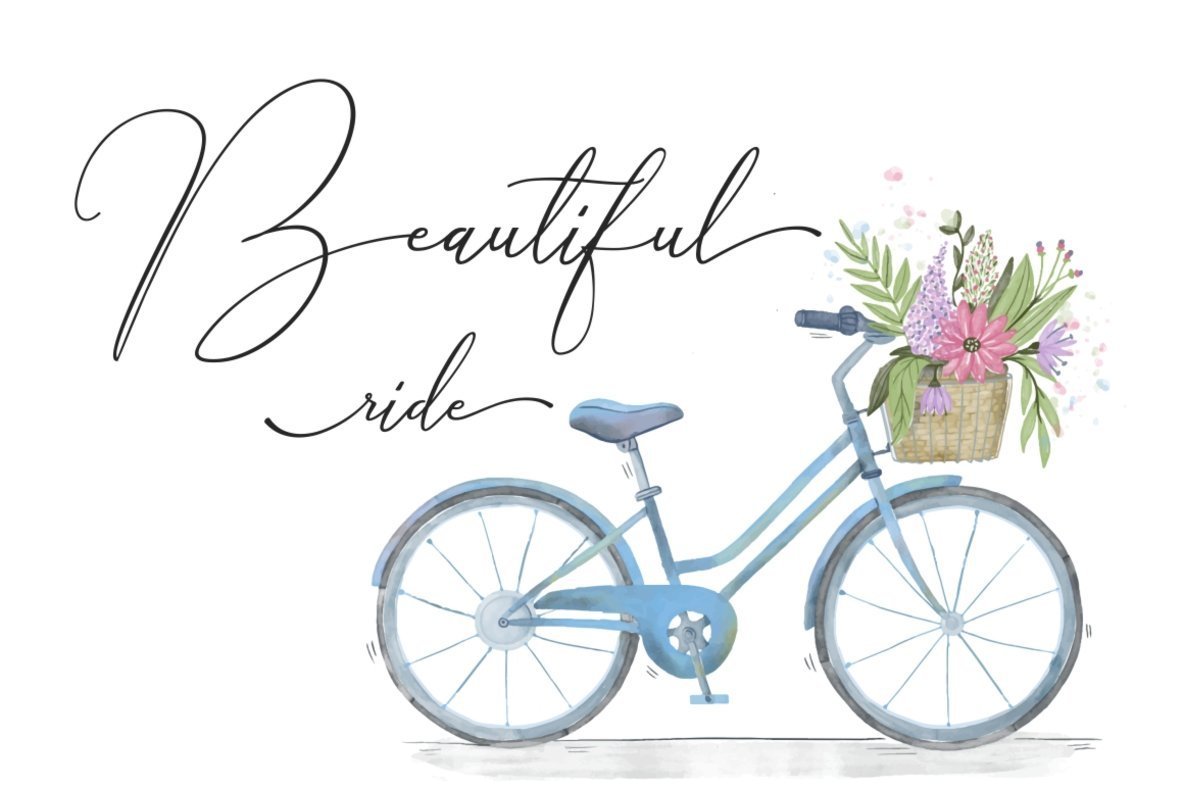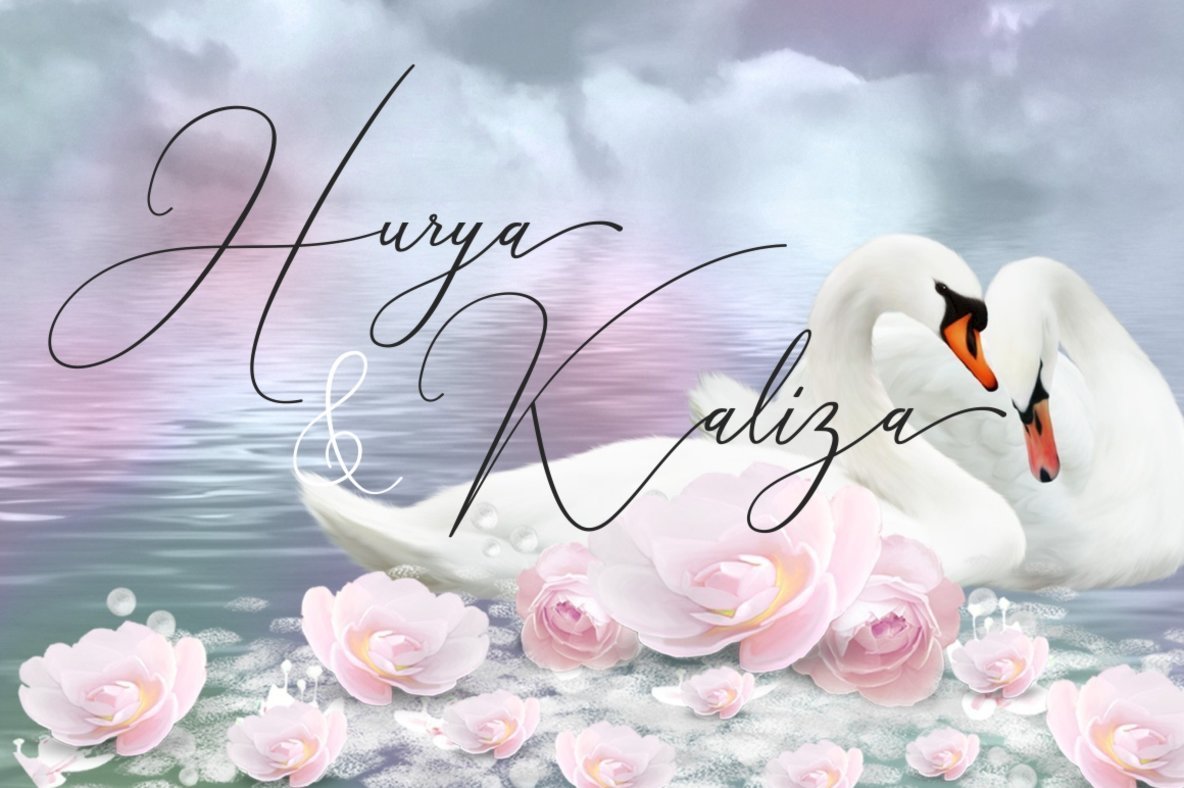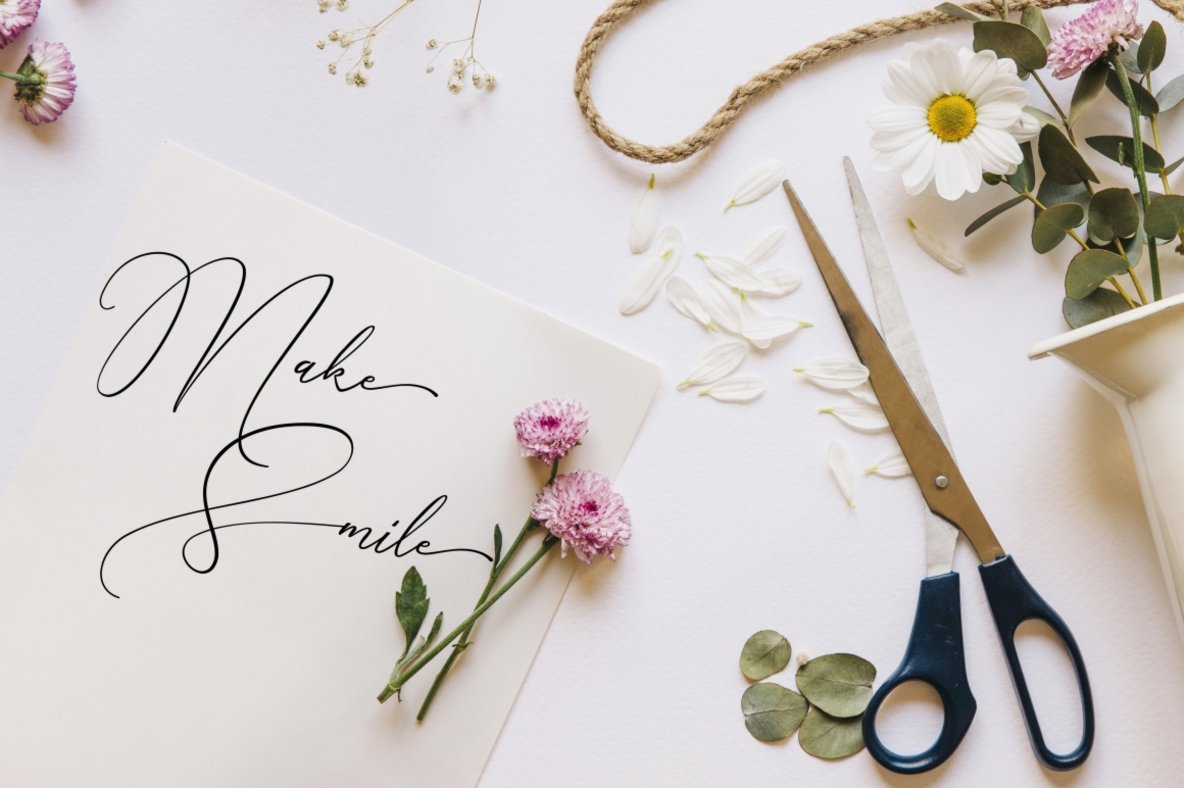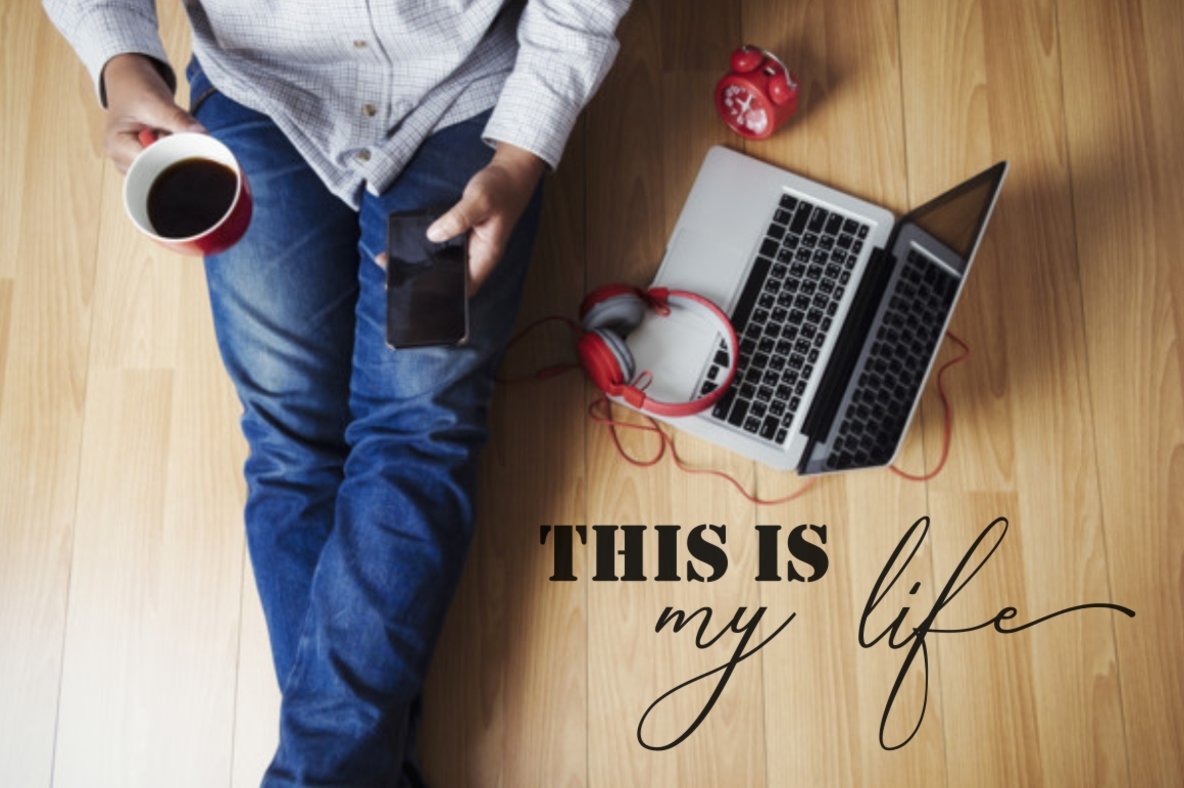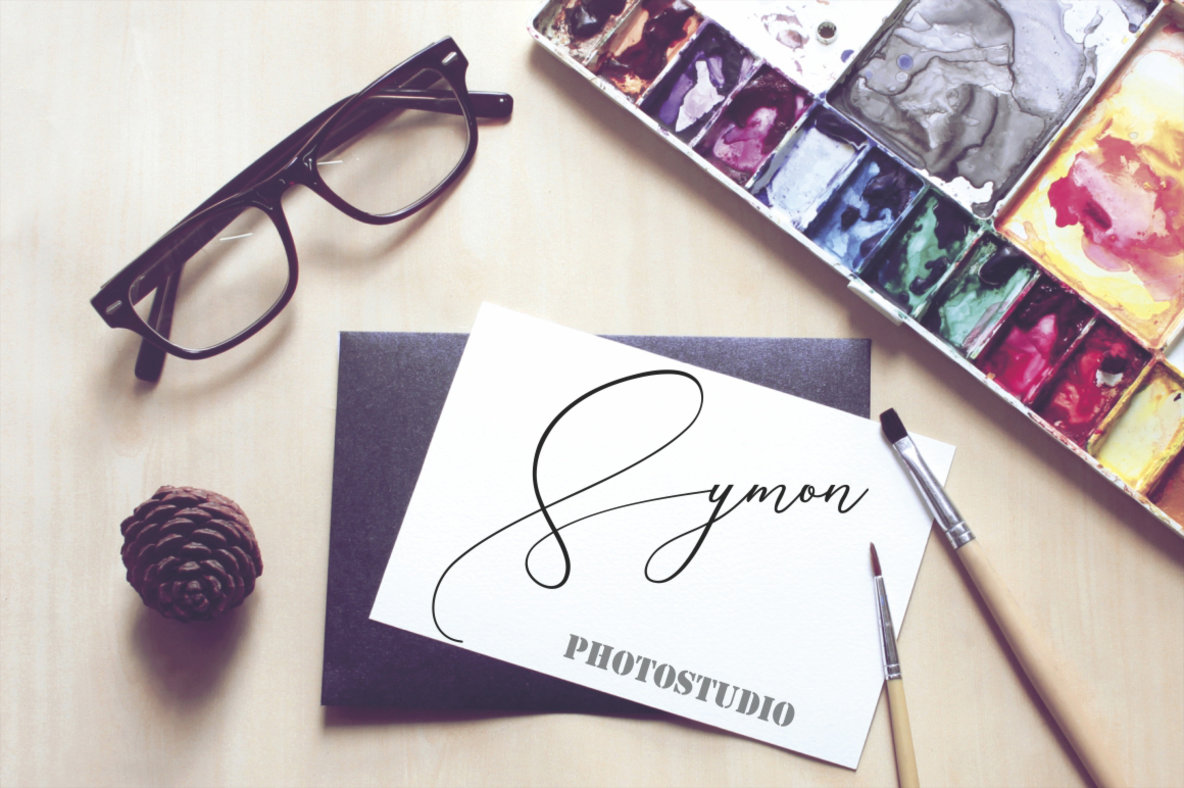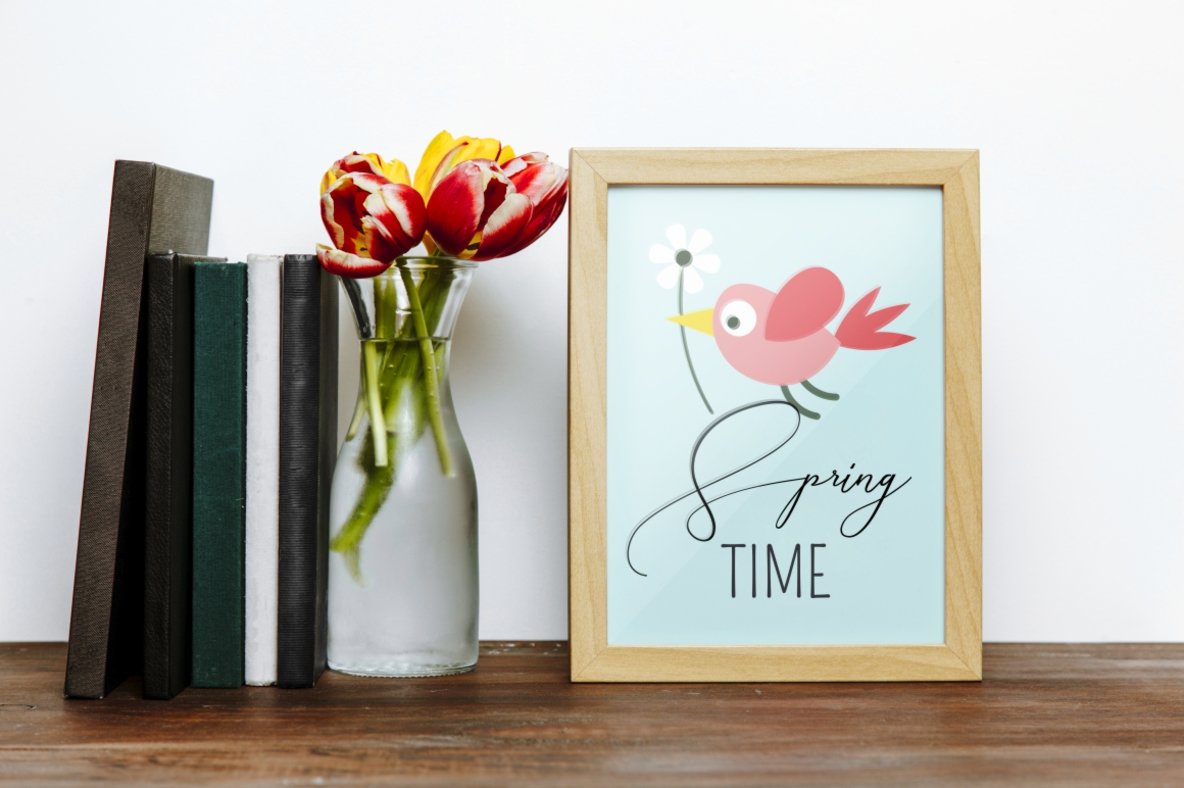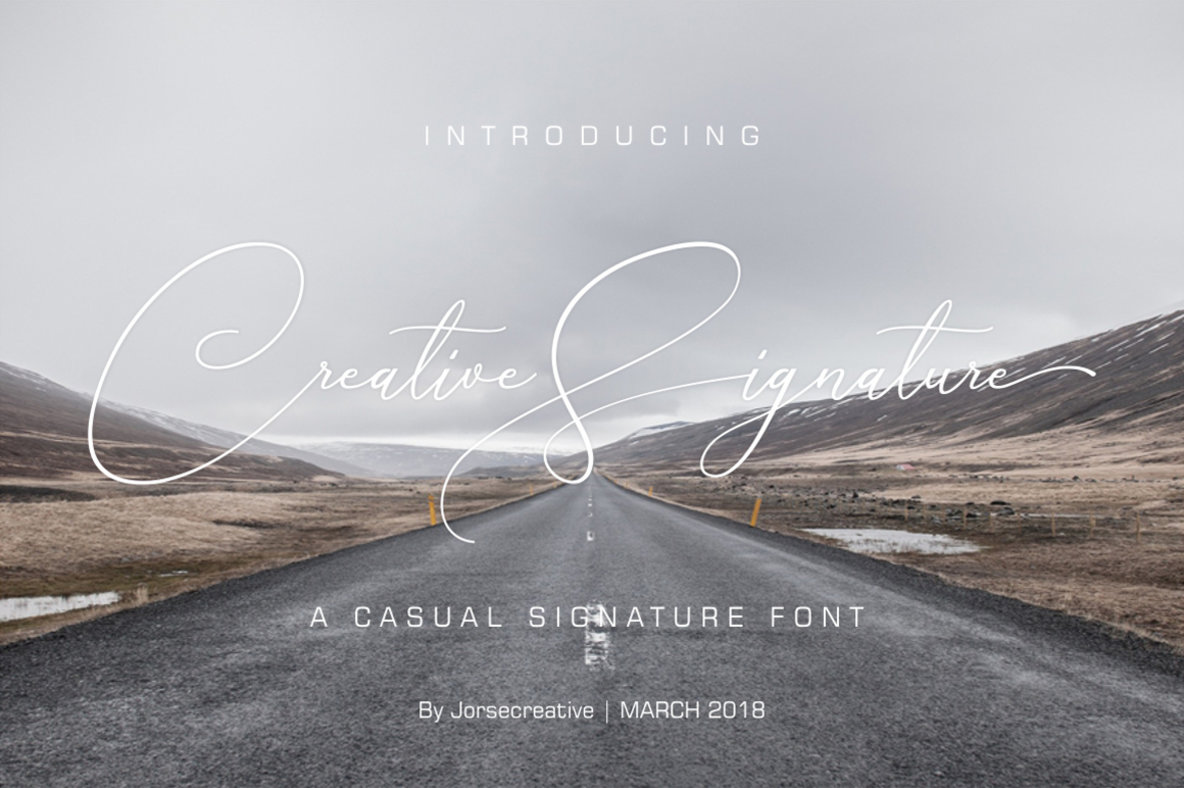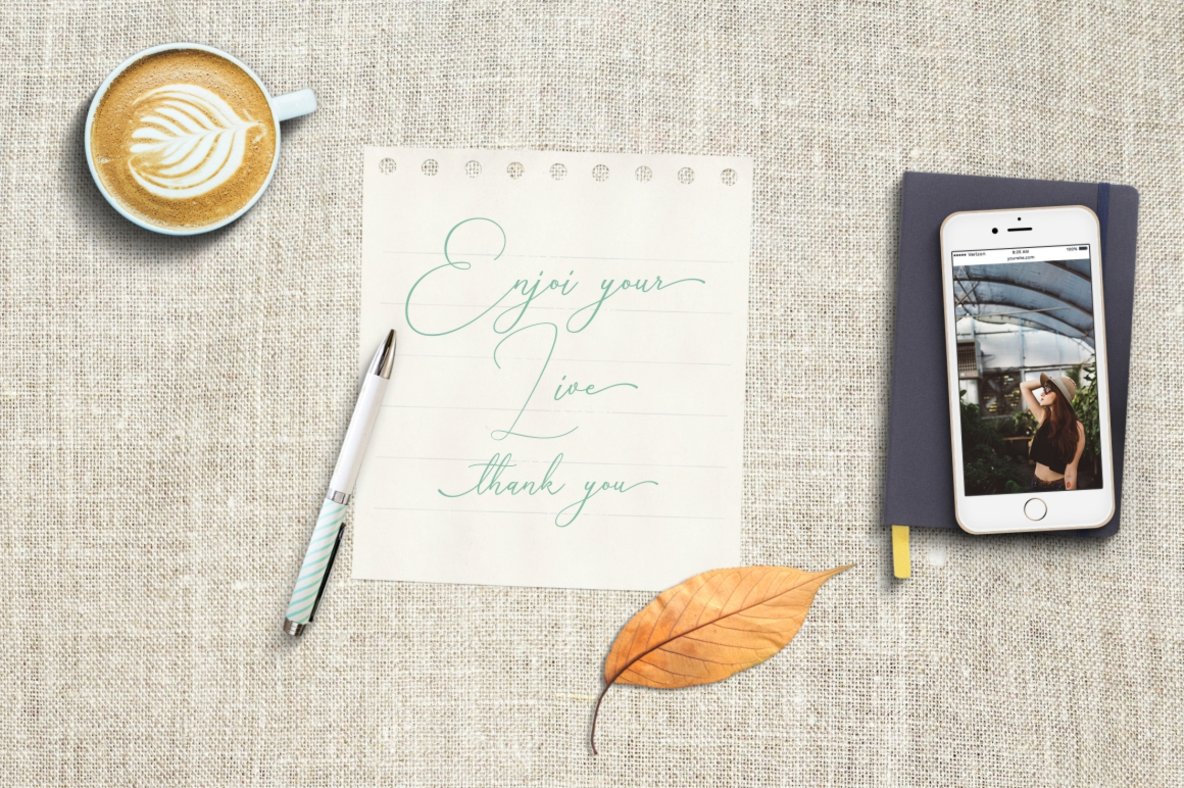
Creative Signature Font
Creative Signature
Infuse your projects with the distinct flair of Creative Signature, a purely handwritten font known for its unique character. This typeface is ideal for a variety of applications such as invitations, social media, business cards, product branding, and more, offering a personal touch that elevates any design.Creative Signature: Elegant Handwritten Style